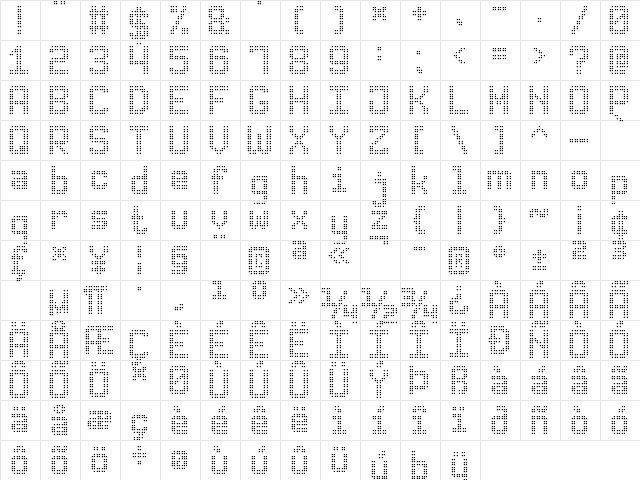
Advanced Dot Digital-7 Regular
| Foundry | Style-7 |
| Designer | Sizenko Alexander |
Design Context for Advanced Dot Digital-7 Typeface
Advanced Dot Digital-7 channels digital-age aesthetics through its sharp, structured letterforms — ideal for brands that want to signal innovation.
Pro Tip: Use Advanced Dot Digital-7 in combination with a neutral sans for body text. Let it define the brand voice in headlines while keeping reading comfortable elsewhere.